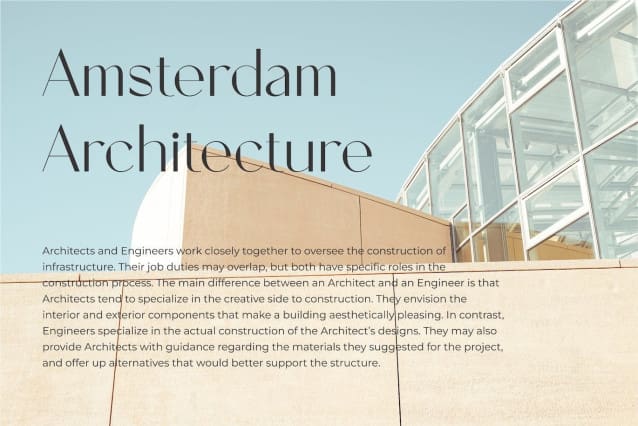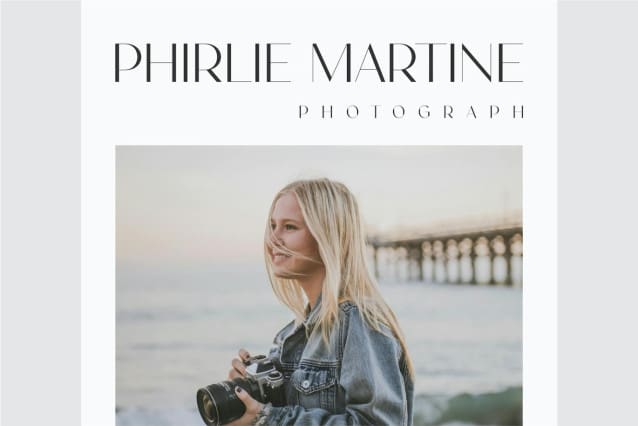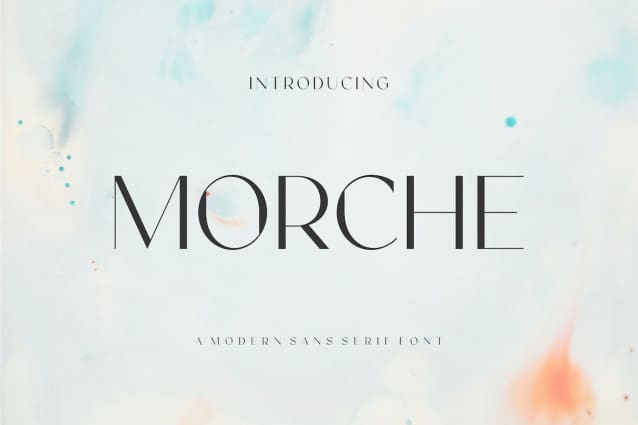
Morche Font
Morche Font, inspired by the famous minimalist logo, perfect for designing templates, brochures, videos, advertising brands, logos, invitations, layouts, elegant crafts, beauty design, etc.